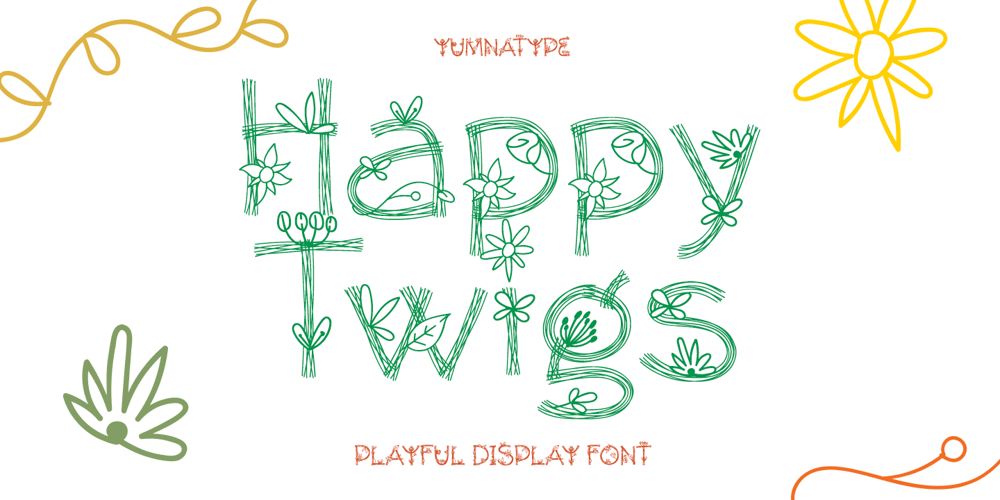
Happy Twigs
Happy Twigs font
Happy Twigs Font Family was designed by Donis Miftahudin and published by Yumna Type. Happy Twigs contains 1 styles and family package options. Fonts are sometimes so limited and boring that it is hard to stand out your designs. What is worse is that you want unique, visually interesting designs, but you still have to use common fonts people have already used. Therefore, Happy Twigs can be your interesting alternatives.Happy Twigs is a twig branch-inspiring display font of which letters are made in a lot of lines forming complex, attractive displays. Its unique character is due to the complex, detailed displays with which you can apply for any artistic, creative designs.Such a display font is applicable for any nature related products. Its complex, attractive letters will help you emphasize the messages you deliver and express different nuances depending on the design and color choices. In addition, it shows crowded and detailed, yet artistic and attractive nuances. Happy Twigs provides a clipart in accordance with the font theme as a bonus and features you can enjoy.Features: Multilingual Supports PUA Encoded Numerals and Punctuations Happy Twigs fits best for various design projects, such as brandings, headings, magazine covers, quotes, printed products, merchandise, social media, etc. Find out more ways to use this font by taking a look at the font preview.Thanks for purchasing our fonts. Hopefully, you have a great time using our font. Feel free to contact us anytime for further information or when you have trouble with the font. Thanks a lot and happy designing.